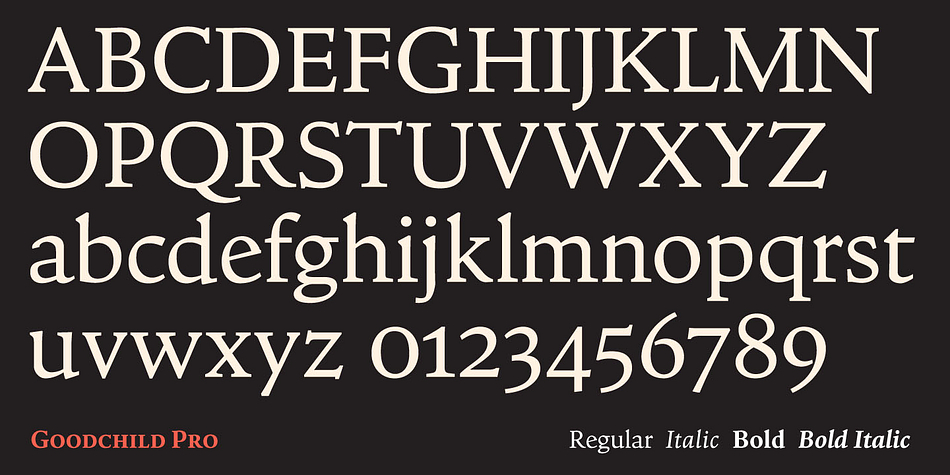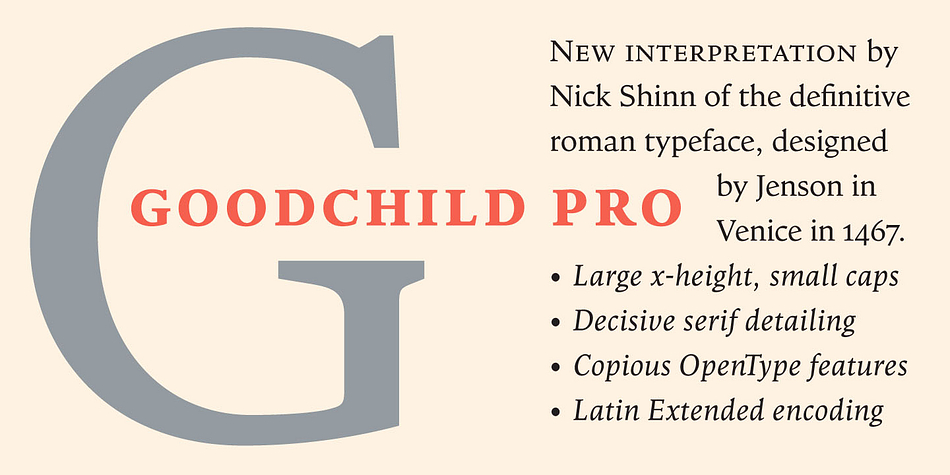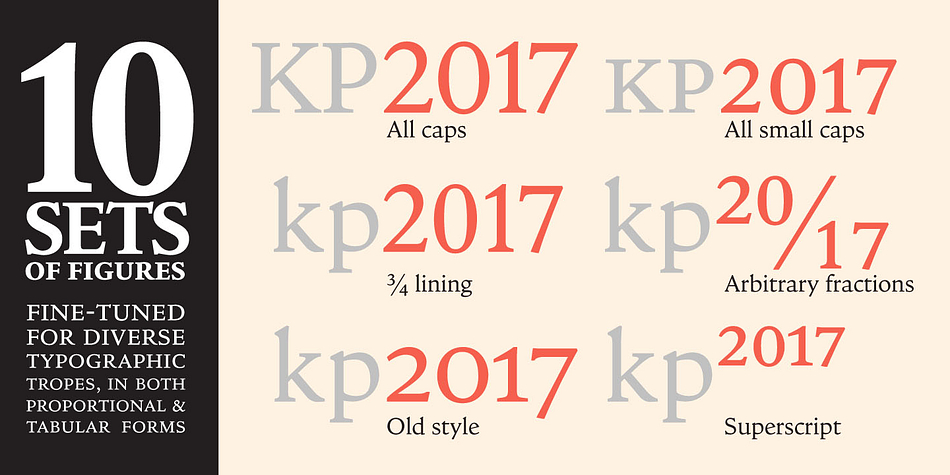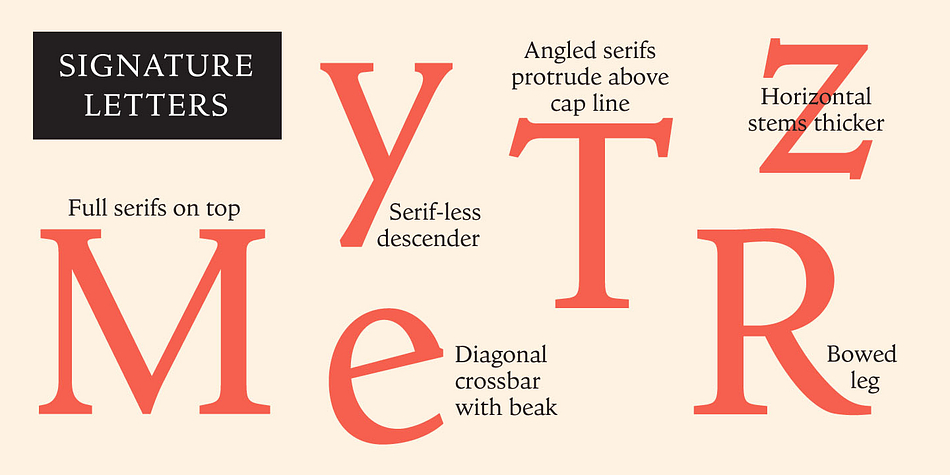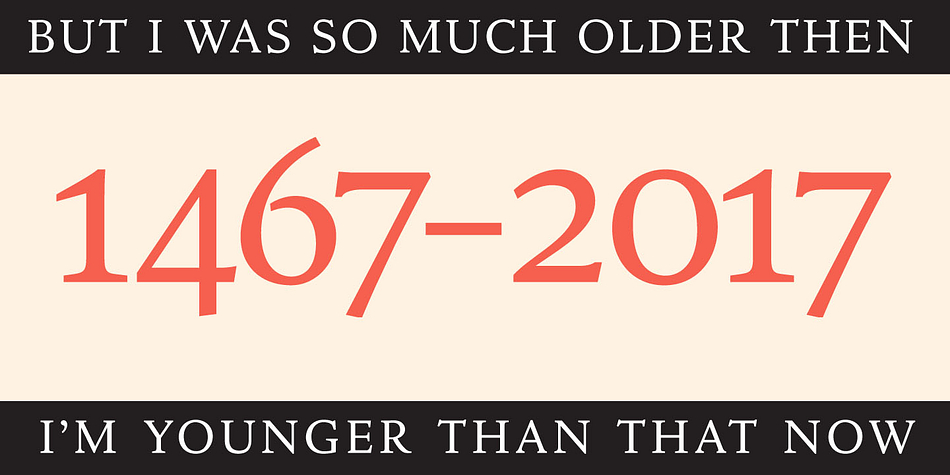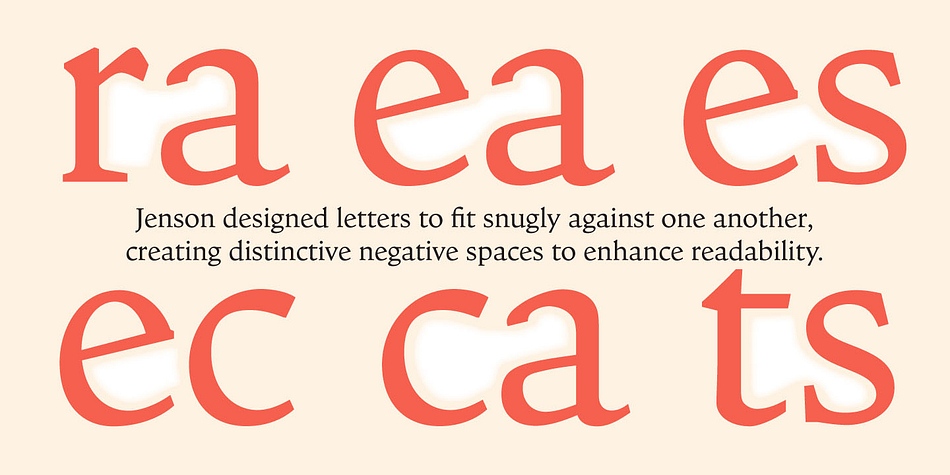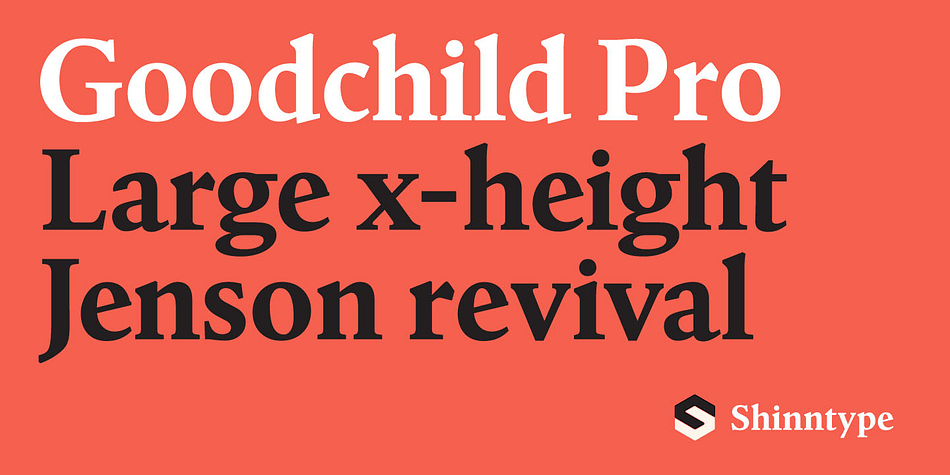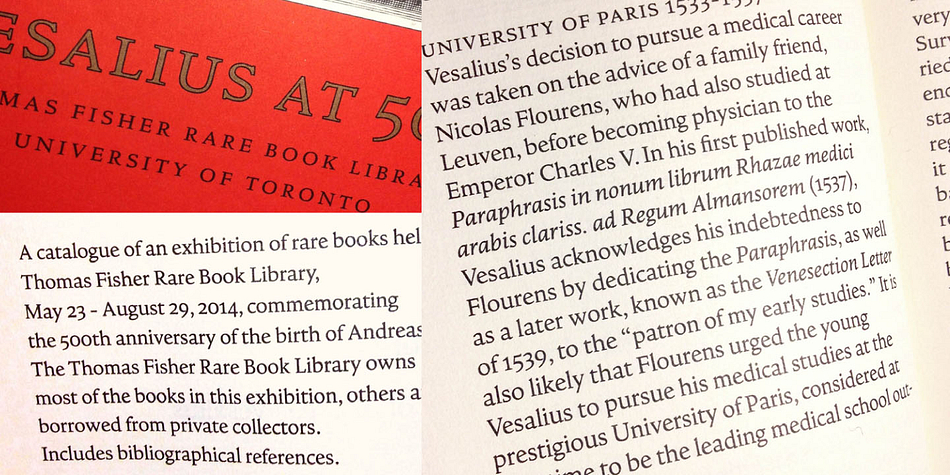
Designed by Nick Shinn, Goodchild Pro is a serif font family. This typeface has four styles and was published by Shinntype.
Goodchild Pro is a pragmatic text face, equipped for sophisticated academic typography.
The face has a large x-height, as there is little point in adding to the stock of rangy “book” Jensons. Despite this departure from the archetype, in other respects Goodchild is true to the original letter forms in its tight fit, modulation of stroke contrast, and manipulation of x-height and serif size. Jenson’s tiny tittles and diamond-shaped periods have, however, been relinquished.
The finish is not the antiquing that one often finds in Renaissance revivals. Here clean, decisive details provide a freshly minted, contemporary appearance, providing a smart impression should one wish to use the face at display size.